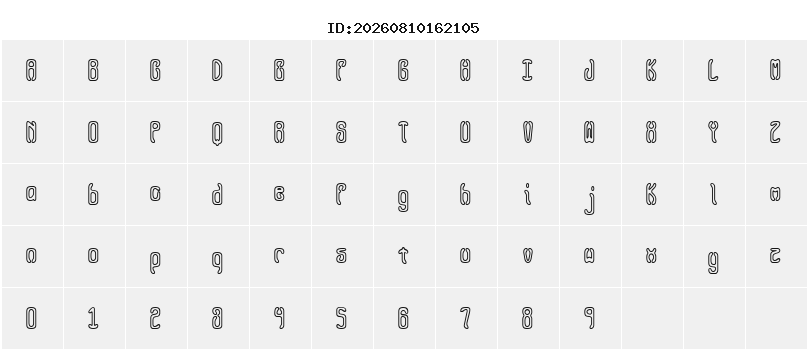
• Font Name: Queasy Outline (BRK)
• Full Font Name: Queasy Outline (BRK)
• Version: Version 4.21
• PostScript Name: QueasyOutline(BRK)
• Character Count: 92
About Queasy Outline (BRK).ttf
Queasy Outline (BRK).ttf is a modern, elegant sans-serif font designed for ultimate readability and visual harmony. Perfect for branding, headlines, web design, and print materials.